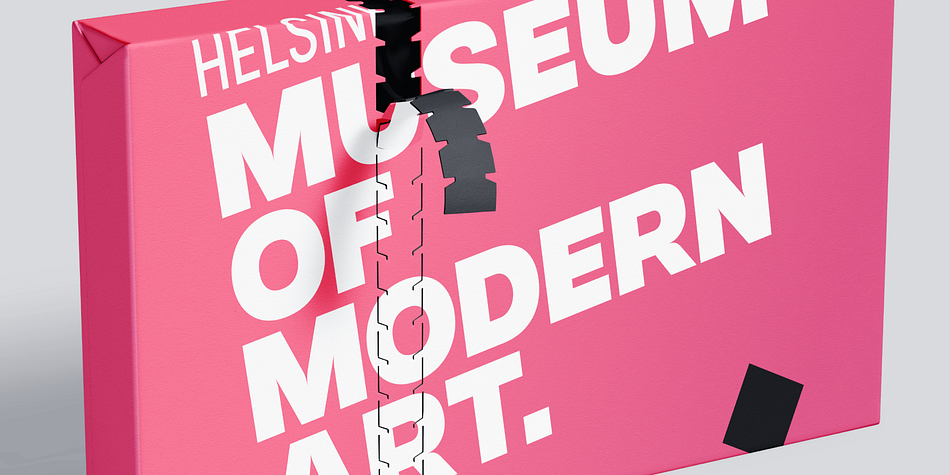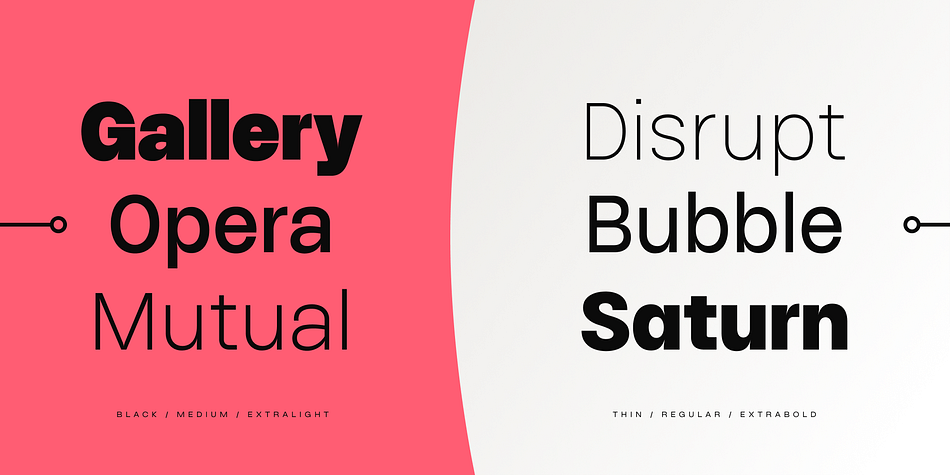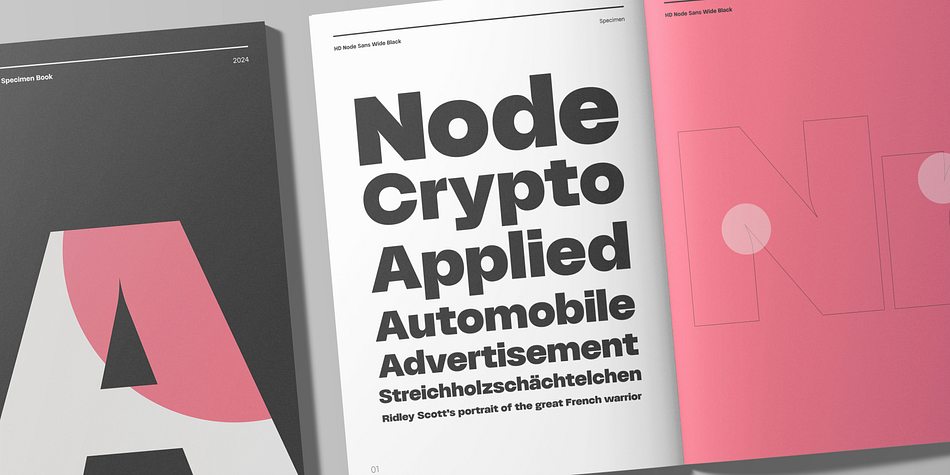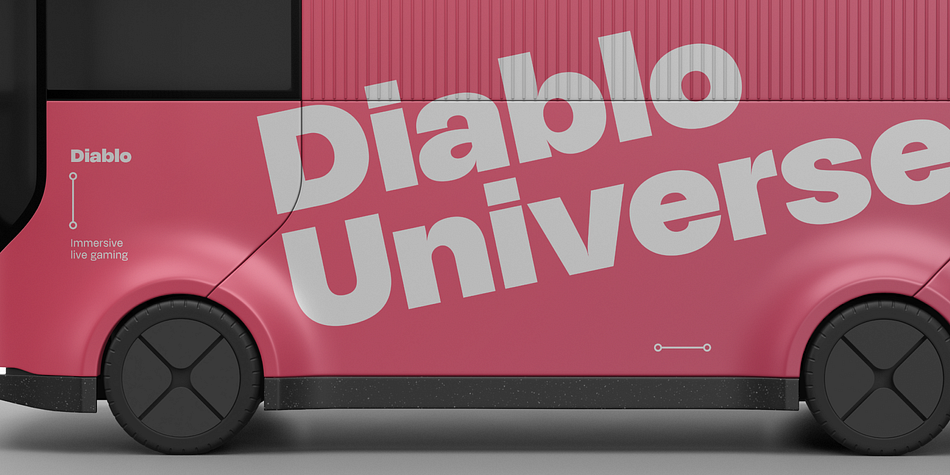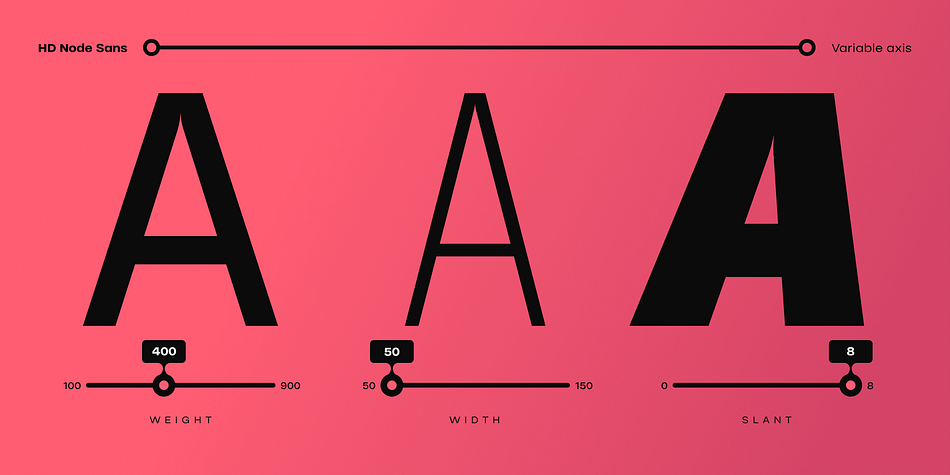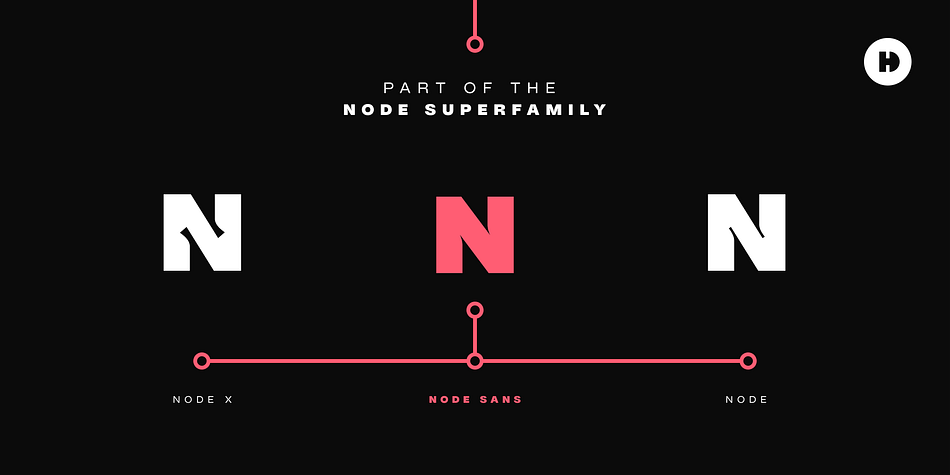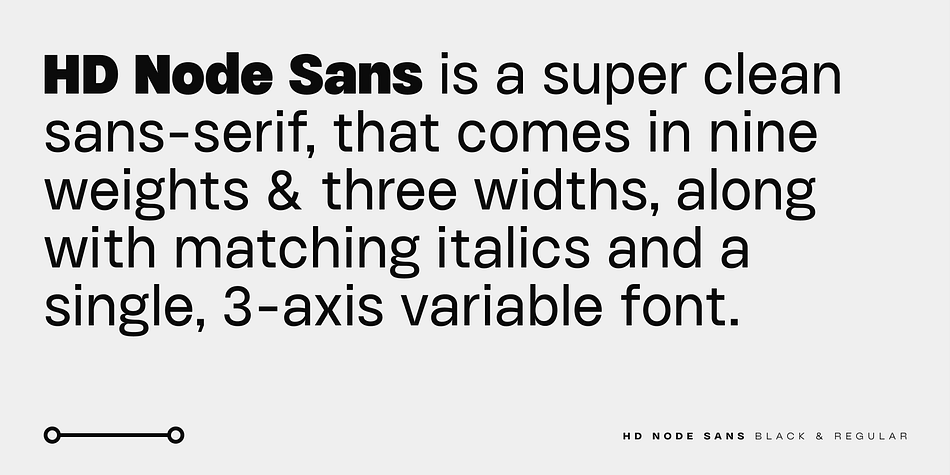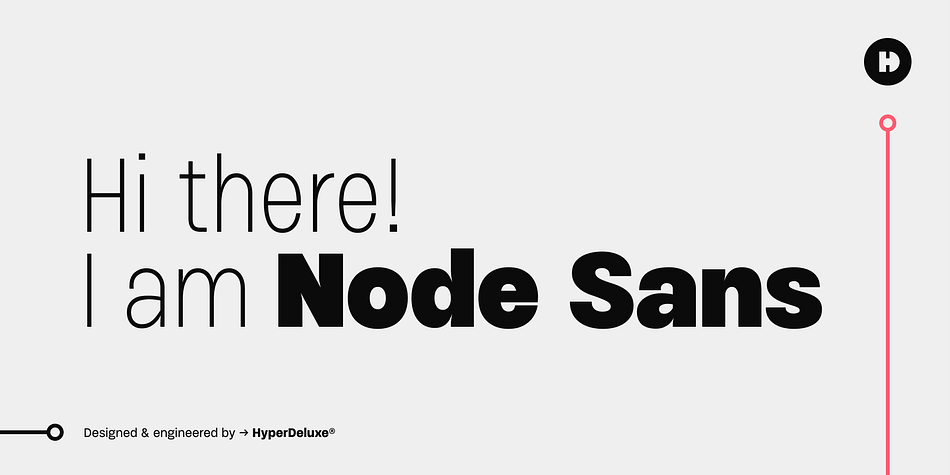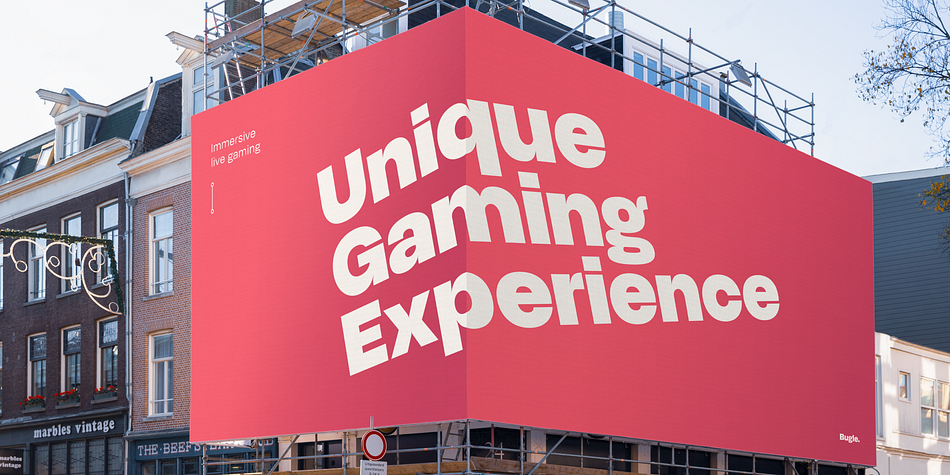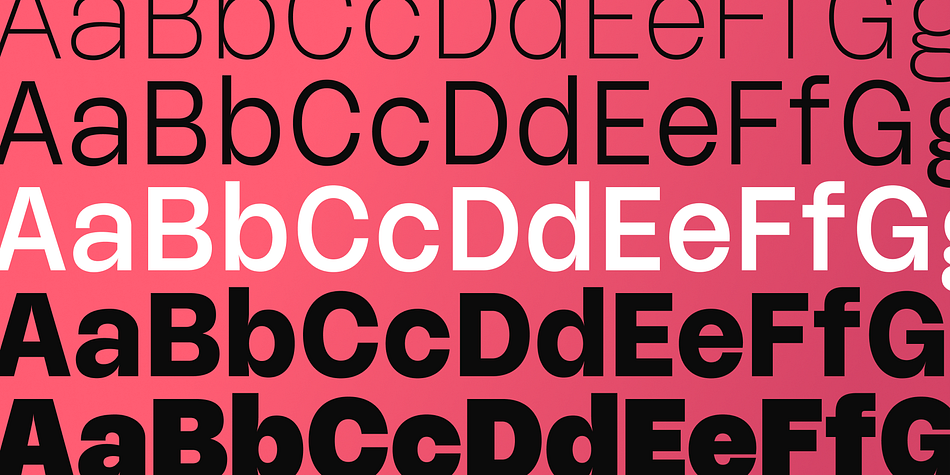
HD Node Sans
Designed by Daniel Jones, HD Node Sans is a sans serif font family. This typeface has fifty-five styles and was published by HyperDeluxe.
Welcome to the world of HD Node Sans, part of the Node Universe.
Comprising of 54 styles or a single 3-axis variable font, Node Sans is the clean member of the Node Superfamily. It comes in 3 widths and 9 weights along with matching italics. The black weights are super impactful, giving an unapologetic in-your-face feel, while the thin weights are delicate and can collaborate well to create a harmony within your design project.
Primarily a display font, Node Sans also has been engineered to work at smaller sizes making it perfect for offline uses such as logos and posters, or digital usage such as on websites or apps.
Node features all of the nice little touches you expect such as extensive Latin support, arrows, circled and squared numbers, as well as alternates for key characters.